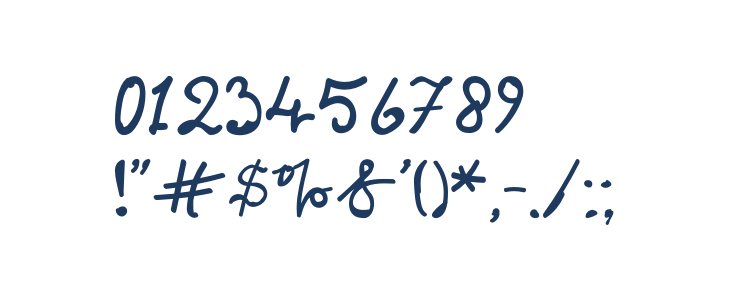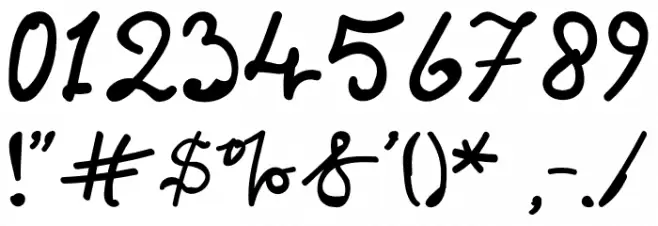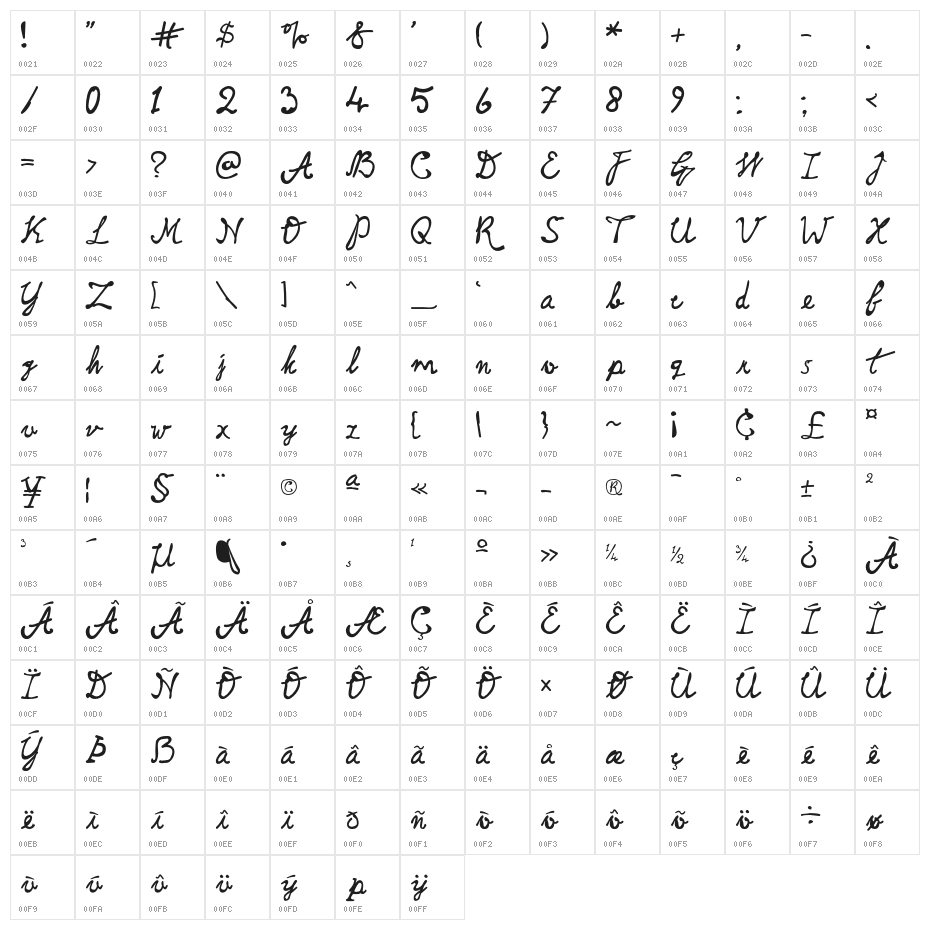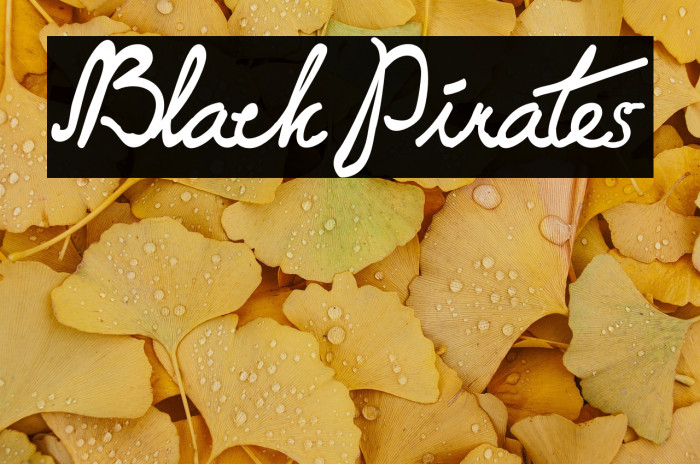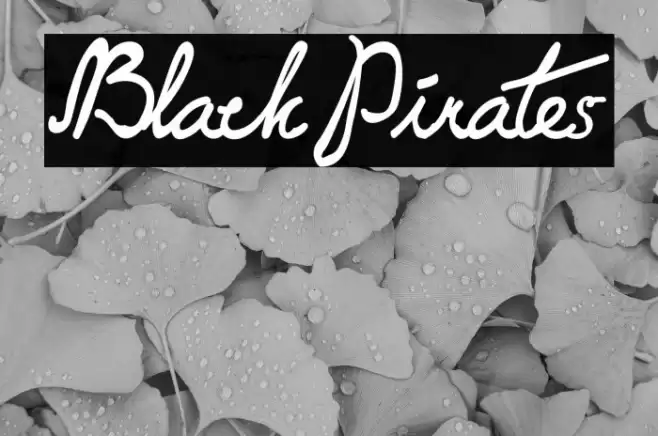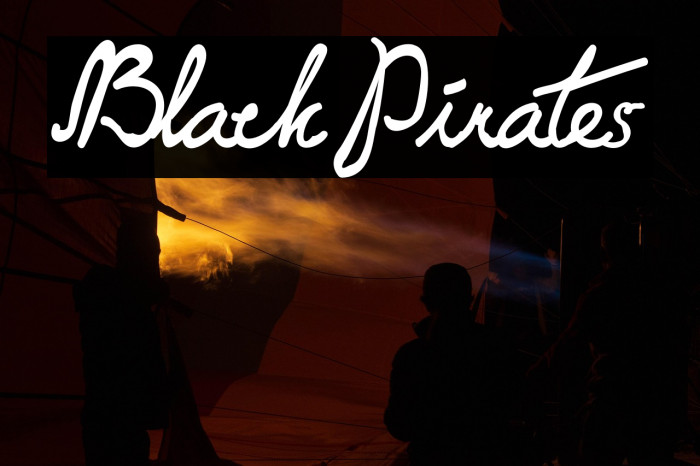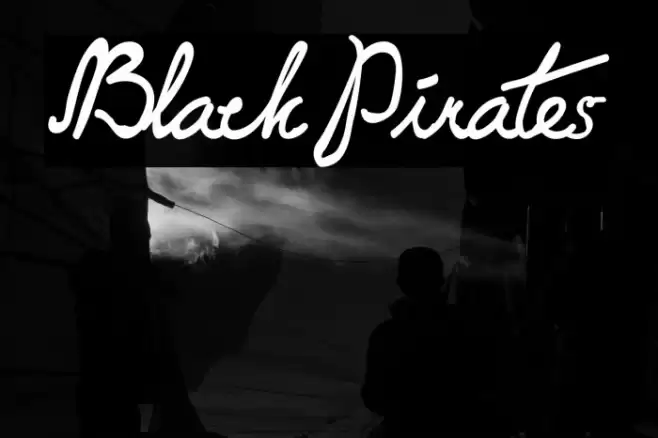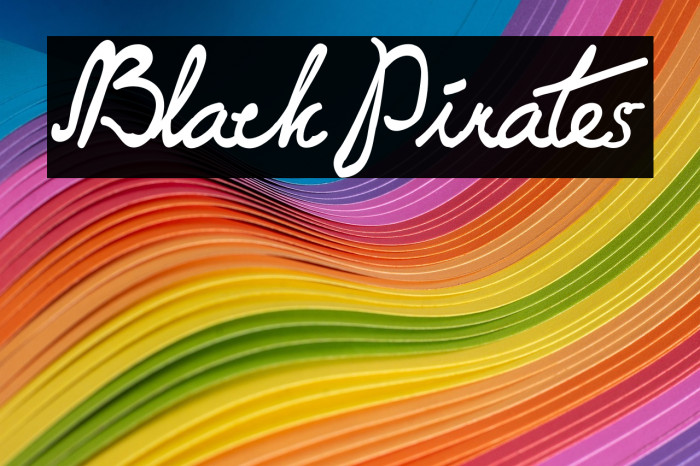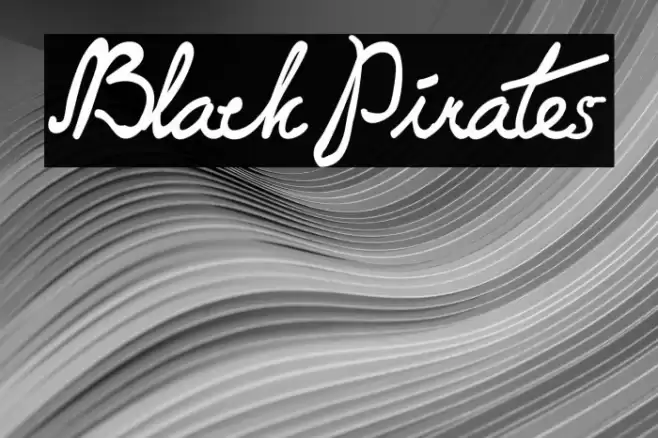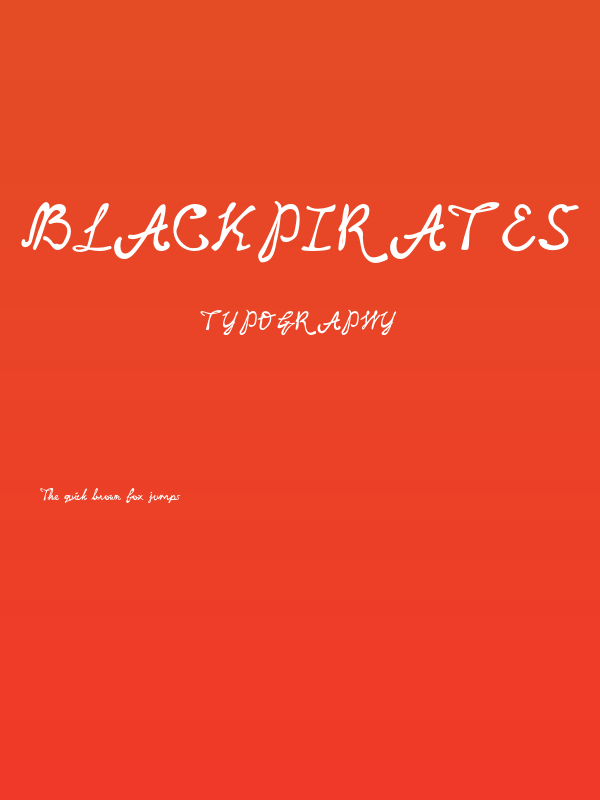
BlackPirates Font
BlackPirates Description
This font exudes a bold and adventurous spirit, reminiscent of pirate tales and high seas adventures. The letters are crafted with a flowing, cursive style that mimics the look of handwritten script, giving it a personal and dynamic feel. The uppercase letters stand tall with a slight slant, while the lowercase letters maintain a consistent flow, enhancing the overall cohesiveness. Numbers and special characters follow the same stylistic cues, ensuring uniformity across all text. The strokes are thick and confident, with a medium contrast that adds depth without overwhelming the eye. This font is perfect for projects that require a touch of drama and flair.